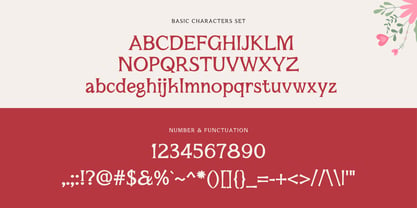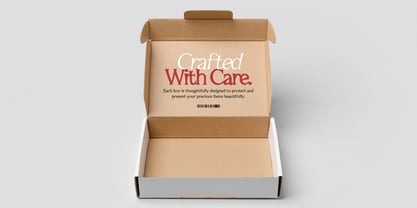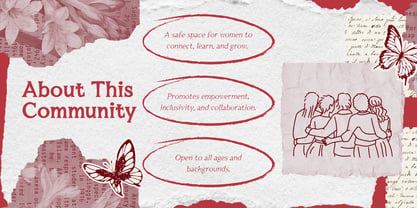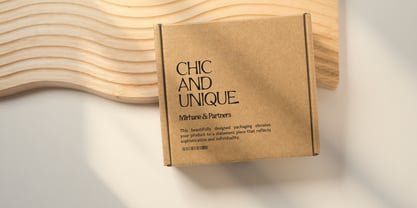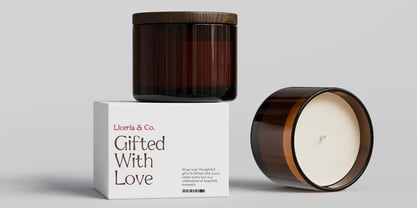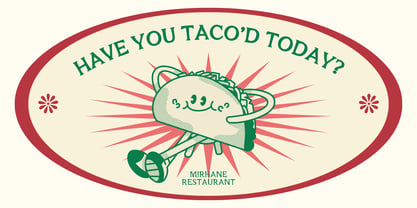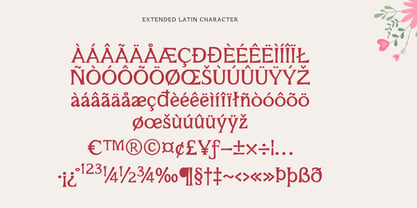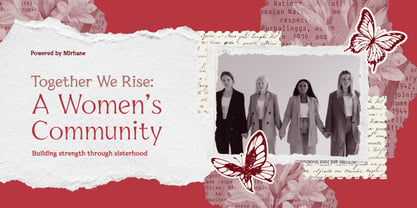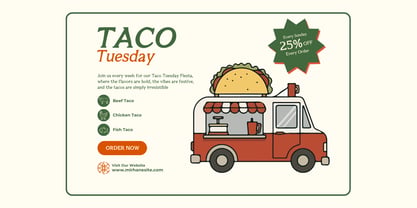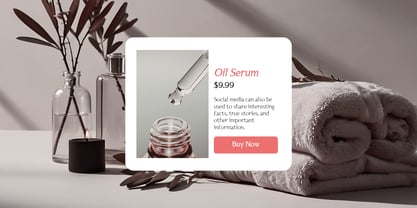
Mirhane
by Tegaki
The Mirhane Font Family was designed by Rudi Suhairi and published by Tegaki. Mirhane contains 6 styles and family package options. More about this family
Mirhane - Modern Serif Typeface Mirhane is a modern serif typeface that combines elegance with a fresh contemporary touch. It features smooth curves, balanced proportions, and refined serif details that create a stylish yet highly readable look. This typeface works beautifully for branding, logos, editorial design, wedding invitations, fashion projects, packaging, social media graphics, and website headlines. Mirhane is designed to bring a modern sophistication to your typography. Mirhane comes in 3 weights: - Thin - Regular - Bold Each weight includes Regular and Slant styles, giving you flexibility to create both clean compositions and more dynamic layouts.
Designers: Rudi Suhairi
Foundry: Tegaki